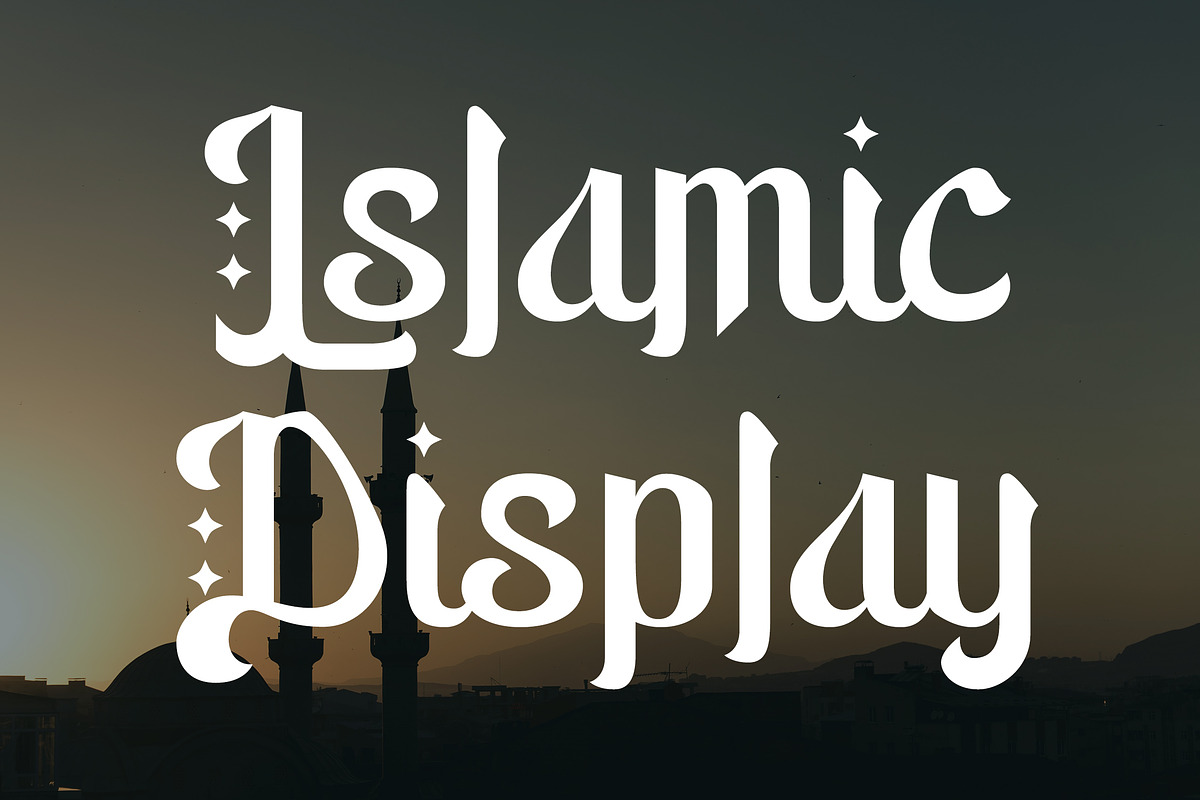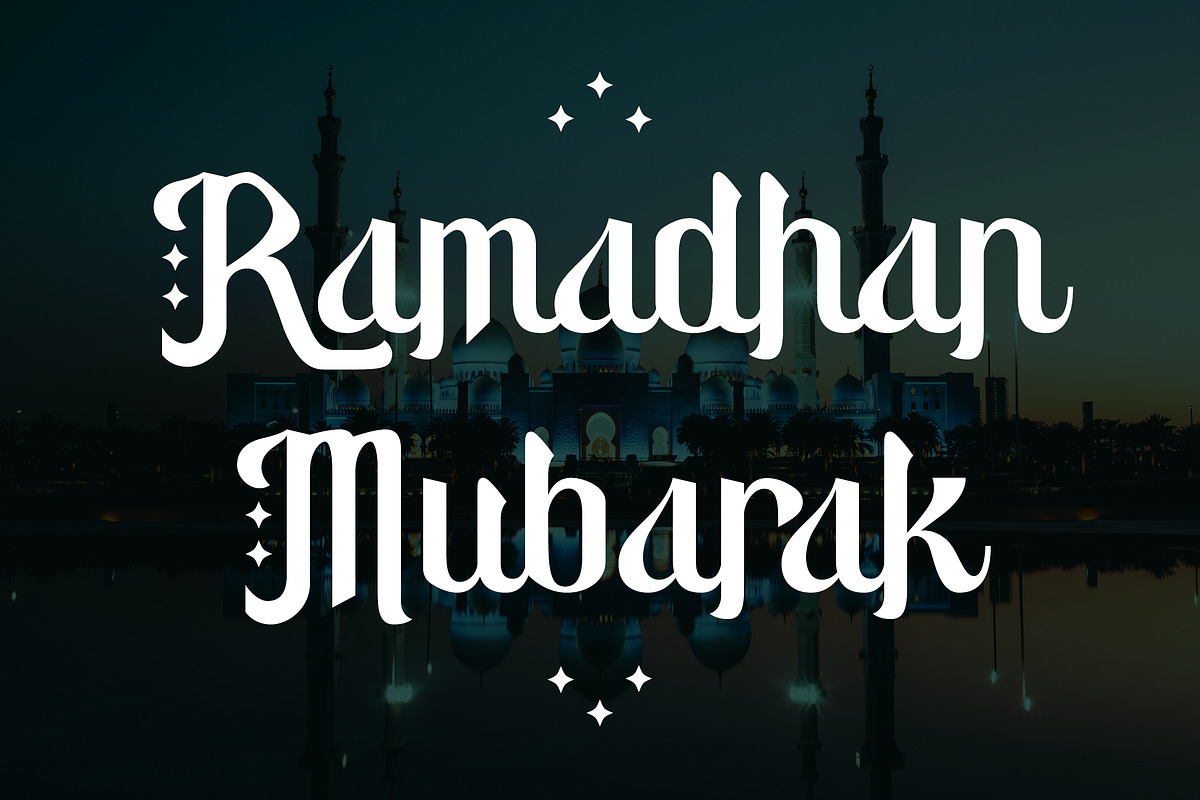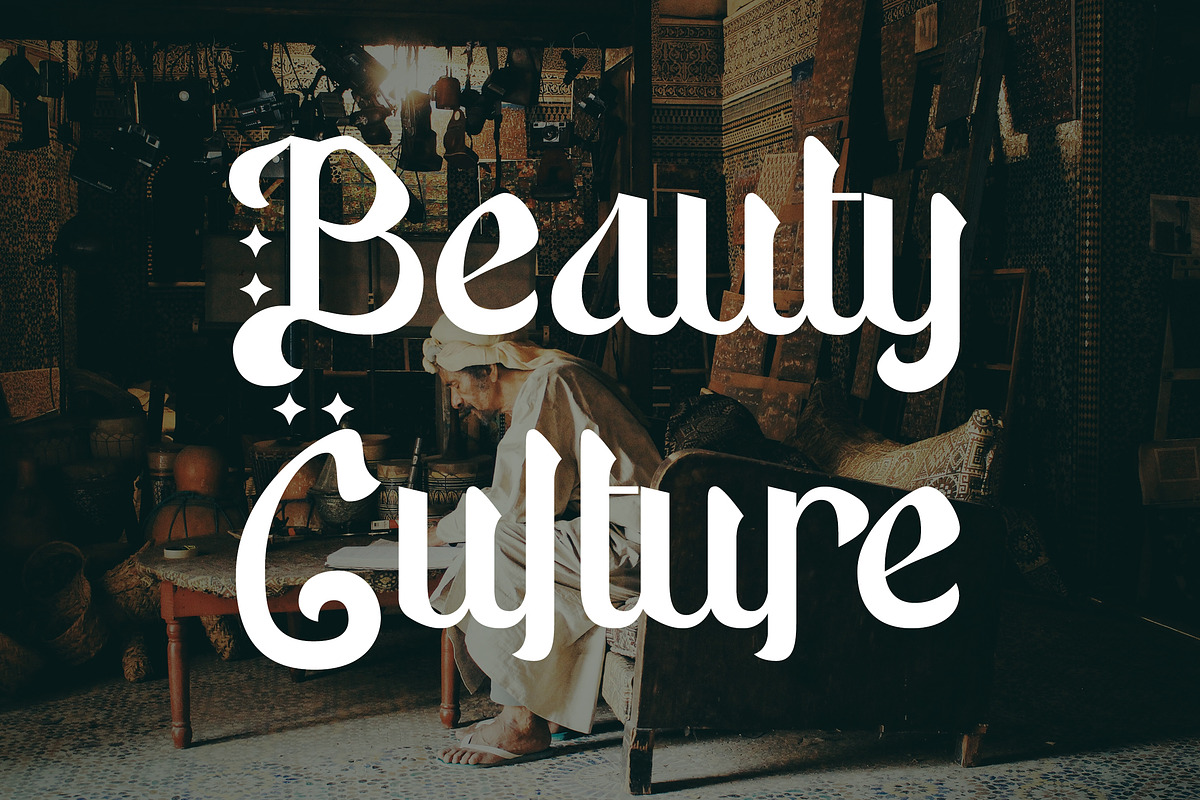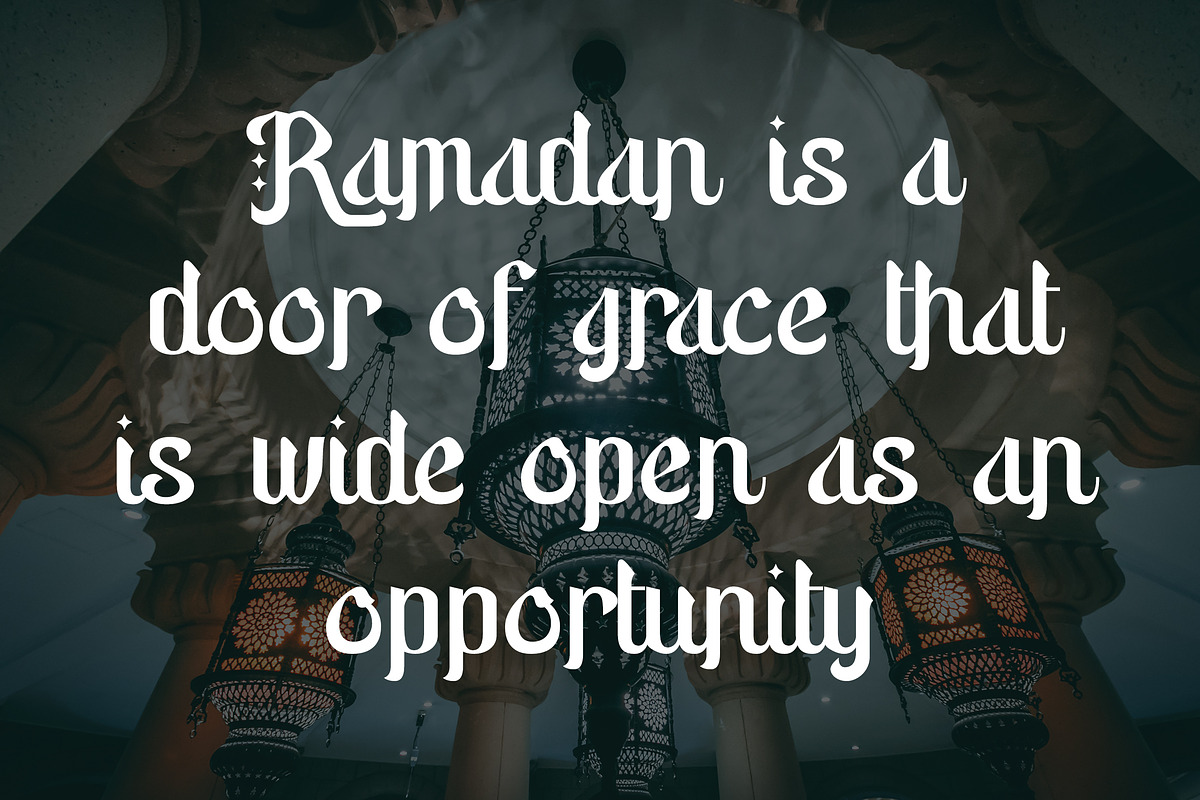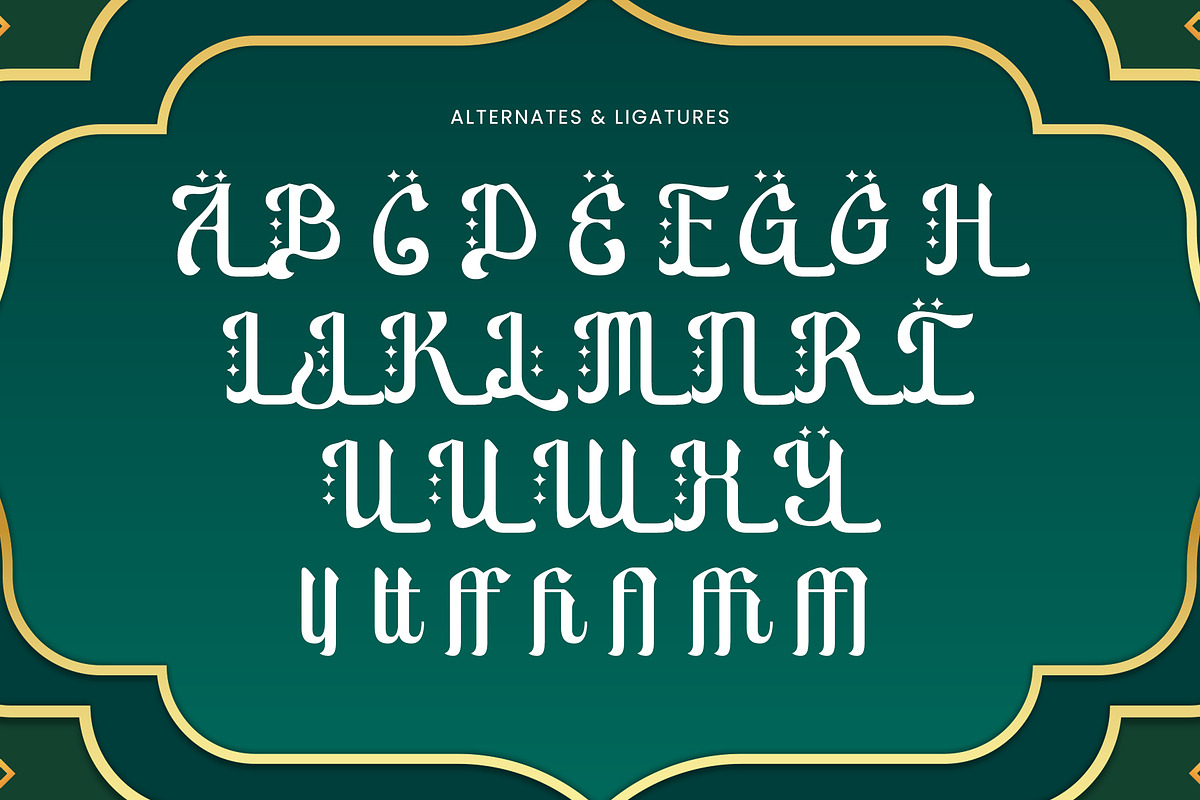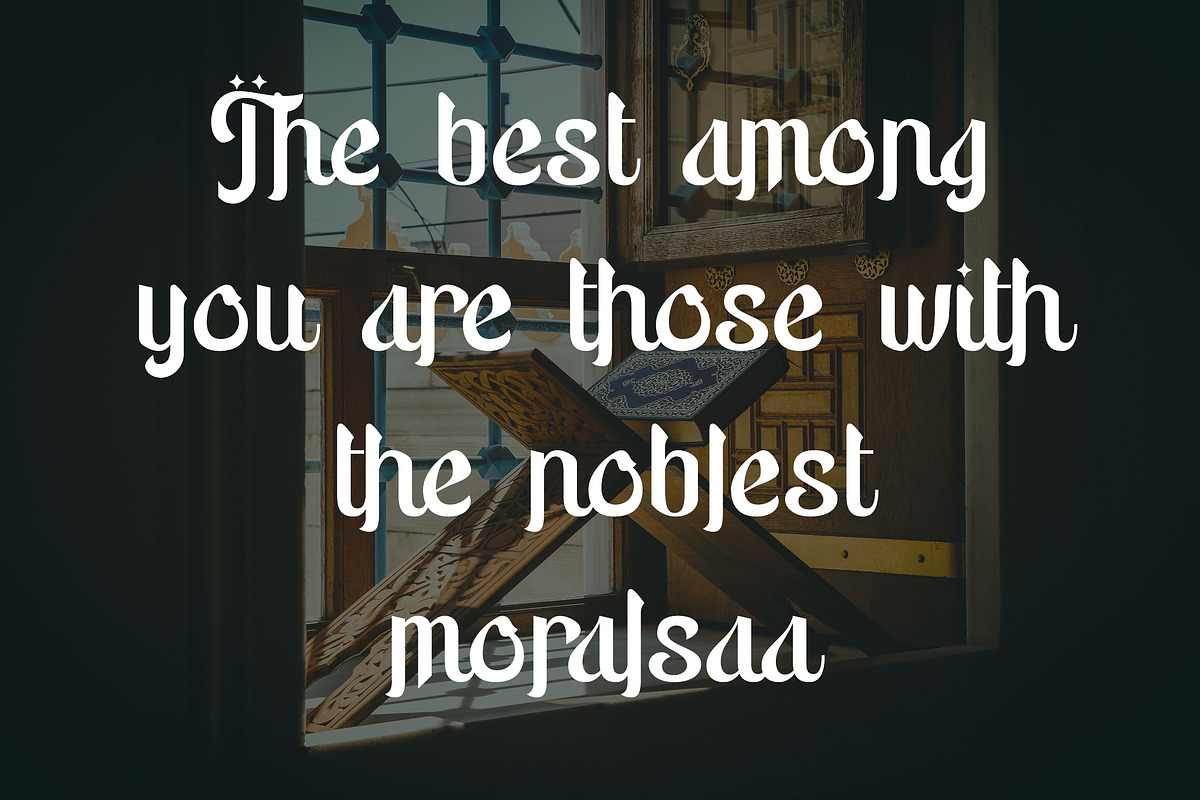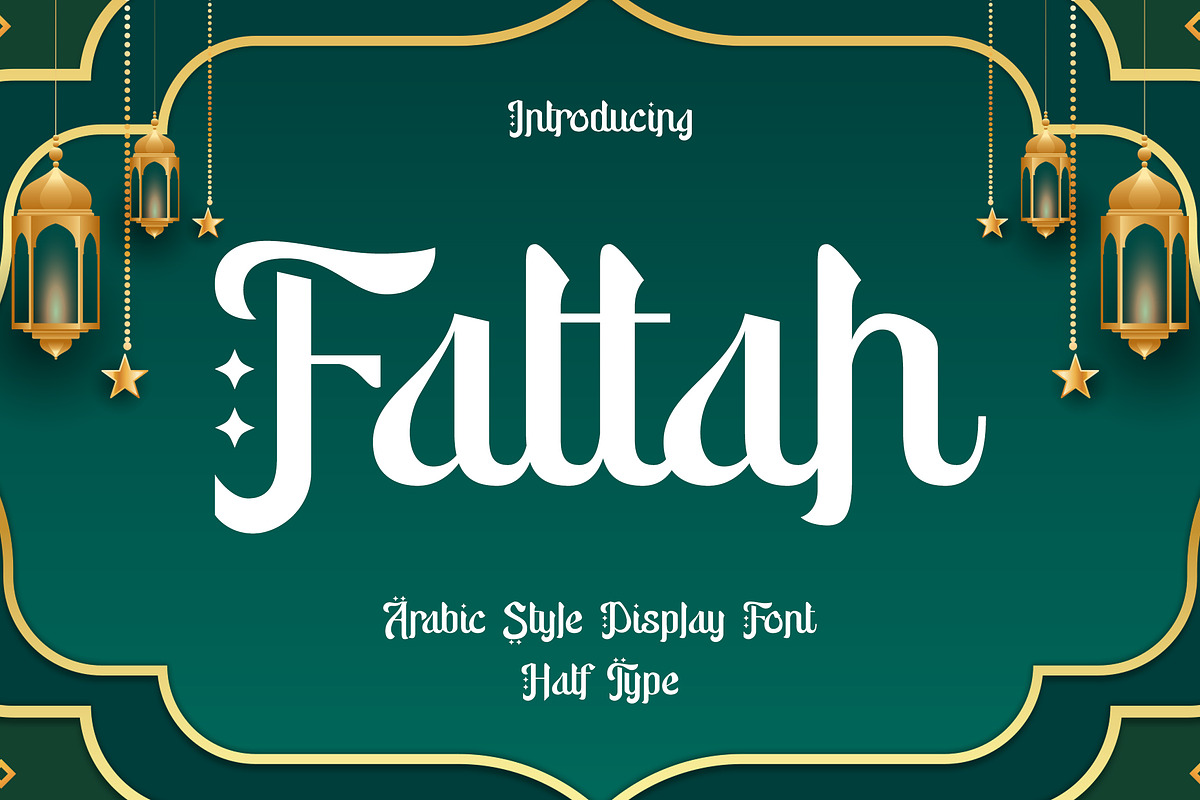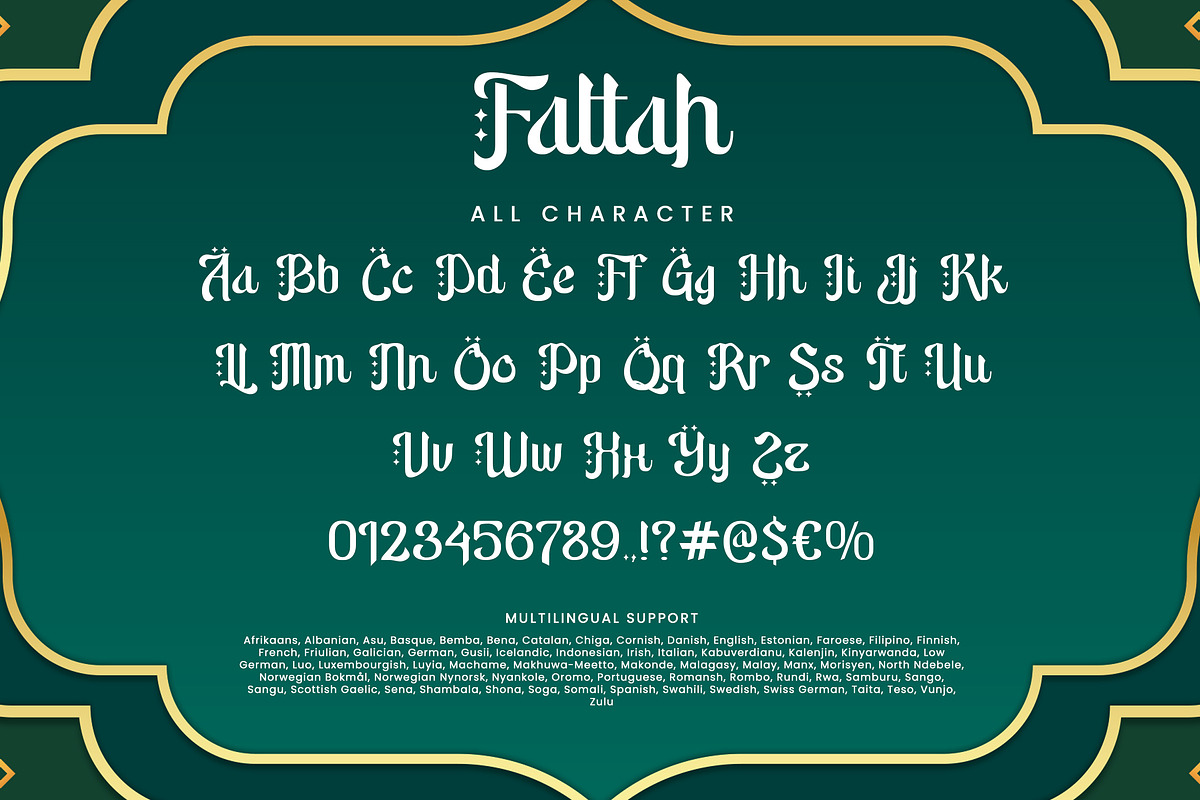
Fattah
Step into an artistic blend of tradition and modernity with Fattah, a stunningly designed Arabic style display font. Imbued with the elegance of Arabic calligraphy, Fattah exudes a unique charm, drawing on the flowing grace of Arabic letterforms married with a contemporary edge. Each stroke captures the intricate complexity and beauty of the Arabic script, effortlessly rendering fluent, decorative accents that augment its aesthetic appeal.
Framed by characteristic curves and crossovers typical of Arabic design, Fattah plays a captivating visual symphony, lending an alluringly exotic ambiance to your text. Every letter unfolds like a work of art, etched with a meticulous precision that mirrors the sublime beauty of each character.
Fattah, with its gorgeously crafted style, is an enchanting choice for designers striving to infuse a touch of Arabic elegance into their projects. It lends an exquisite visual language that can transform ordinary design into extraordinary, elevating it with an irresistibly distinguished Arabic flair.